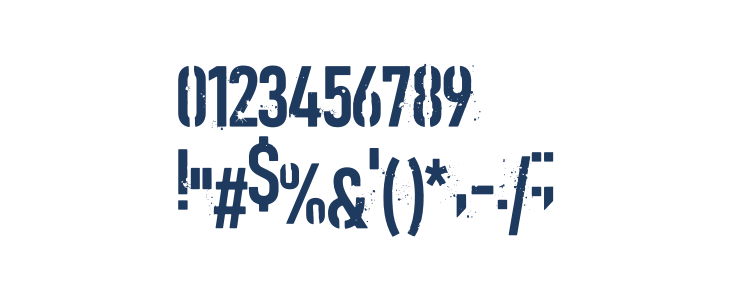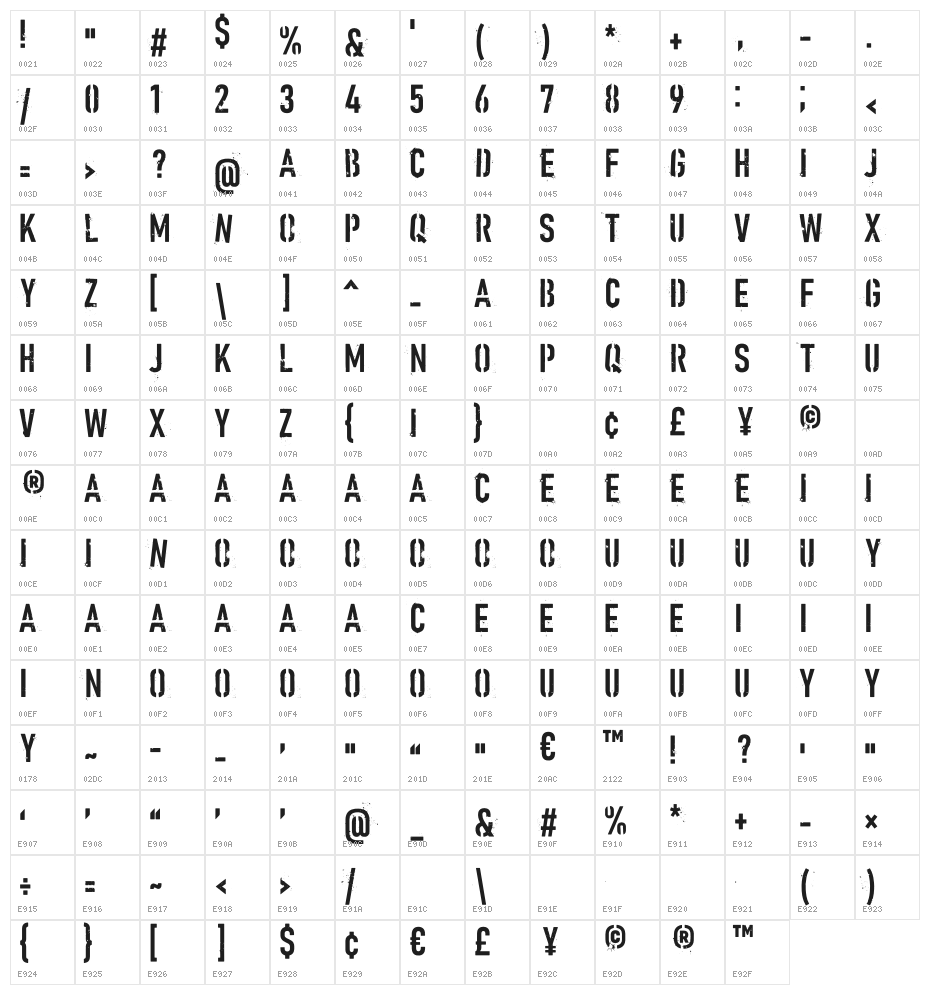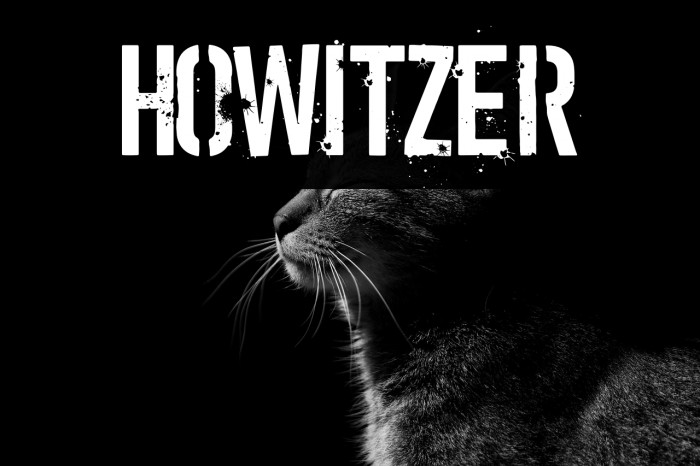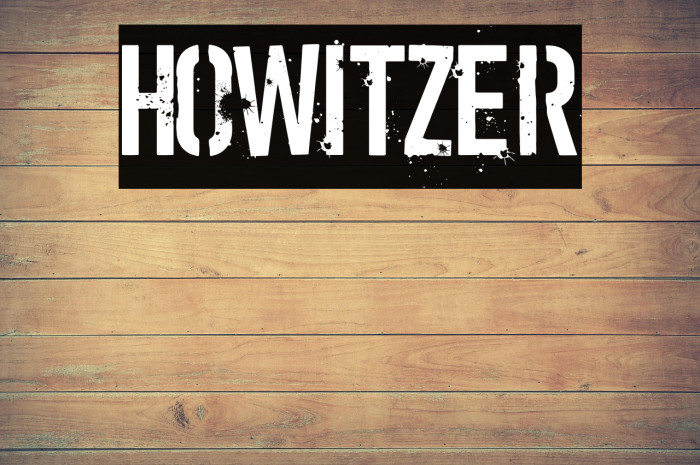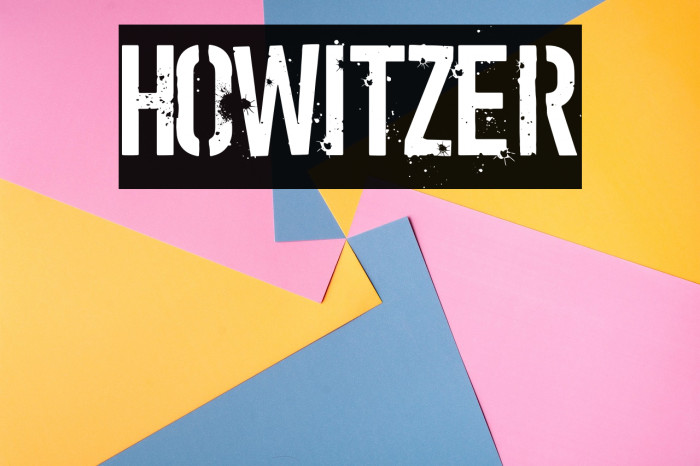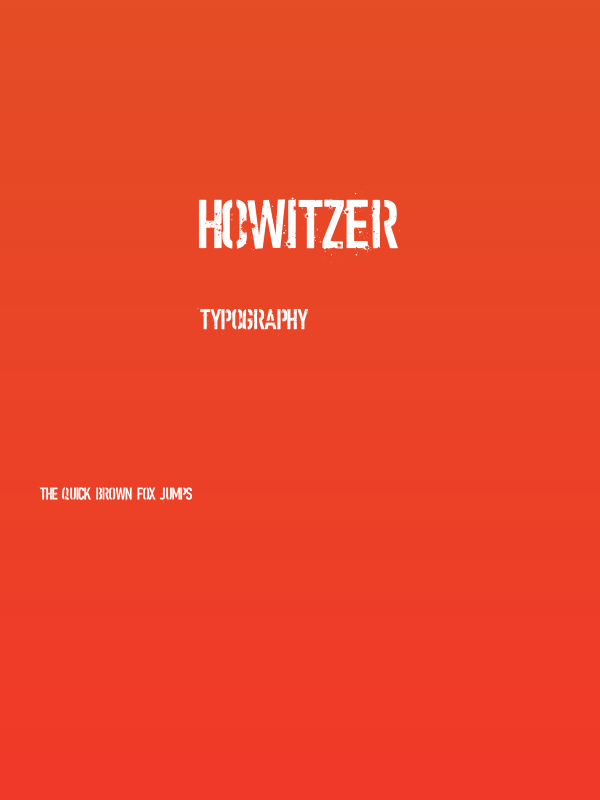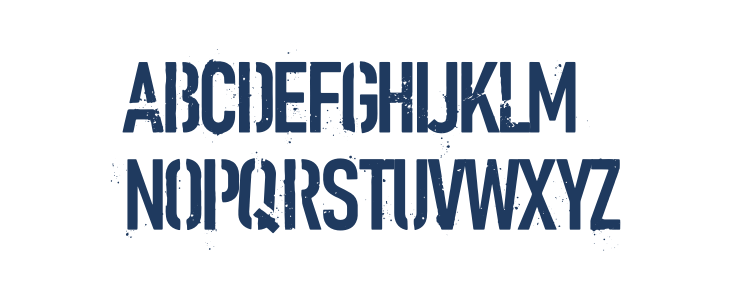
HOWITZER Font
HOWITZER Description
This font features a bold, distressed style with a rugged, textured appearance. The characters are uppercase and have a stencil-like quality, giving them a military or industrial feel. The rough edges and irregularities in the letterforms create a sense of wear and tear, adding to its gritty aesthetic. The numbers and special characters maintain this distressed look, ensuring consistency across all glyphs. This font is ideal for projects that require a strong, impactful presence with a touch of vintage or grunge style.
| Overall Style | Vintage, Grunge |
| Proposed Projects | Ideal for posters, album covers, branding for outdoor or adventure products, and any design needing a strong, gritty impact. |